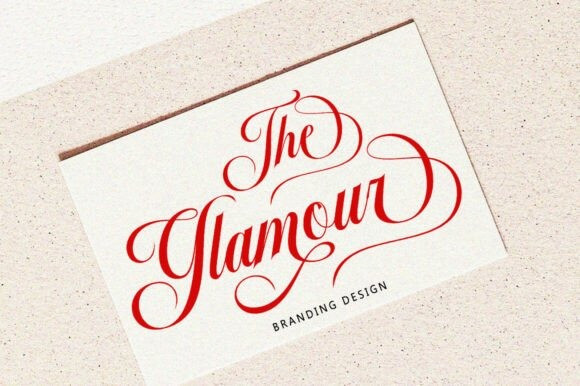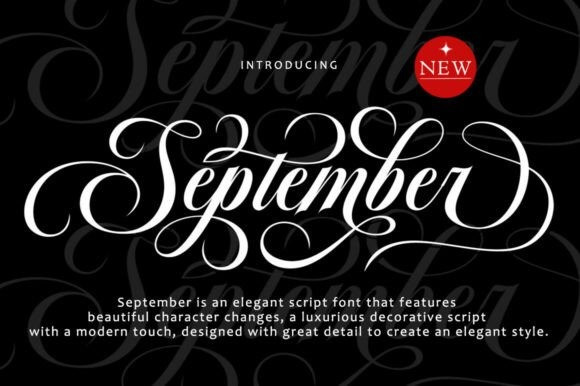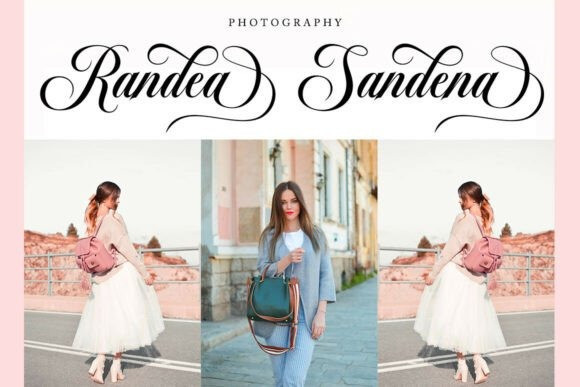
September Calligraphy font is an elegant script font featuring beautiful character variations. This font combines a luxurious style with a modern touch, meticulously designed for an elegant look.
This font is visually appealing, clean, feminine, and easy to read thanks to its luxurious letter connections. Its classic style is perfect for a variety of formal uses, including invitations, labels, restaurant menus, logos, fashion, makeup, stationery, novels, magazines, books, greeting and wedding cards, packaging, and all types of advertising.